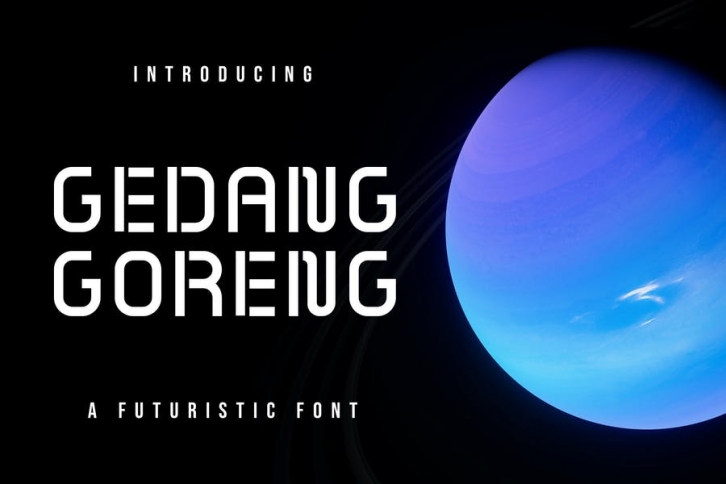
Gedang Goreng Futuristic Font
This is the latest modern font from us, very suitable for use in your work presentations such as blog design, modern design, web design, invitation cards, and others. please download and enjoy!